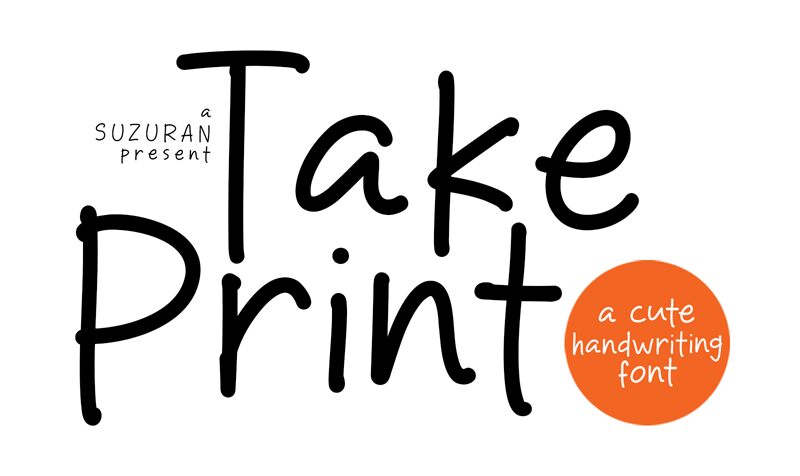
Take Print
Take Print font by Khurasan is a free handwritten font whose casual aesthetic and organic flow create an approachable vibe. The typeface’s hand-drawn appearance suits contemporary use in creative designs.
The font can be used for printed magazine or newspaper headlines, book or comic covers, novels, posters, movie titles, apparel design, labels and tags, social media banners and posts. It’s also suitable for logo templates as well as stationery items like business cards.